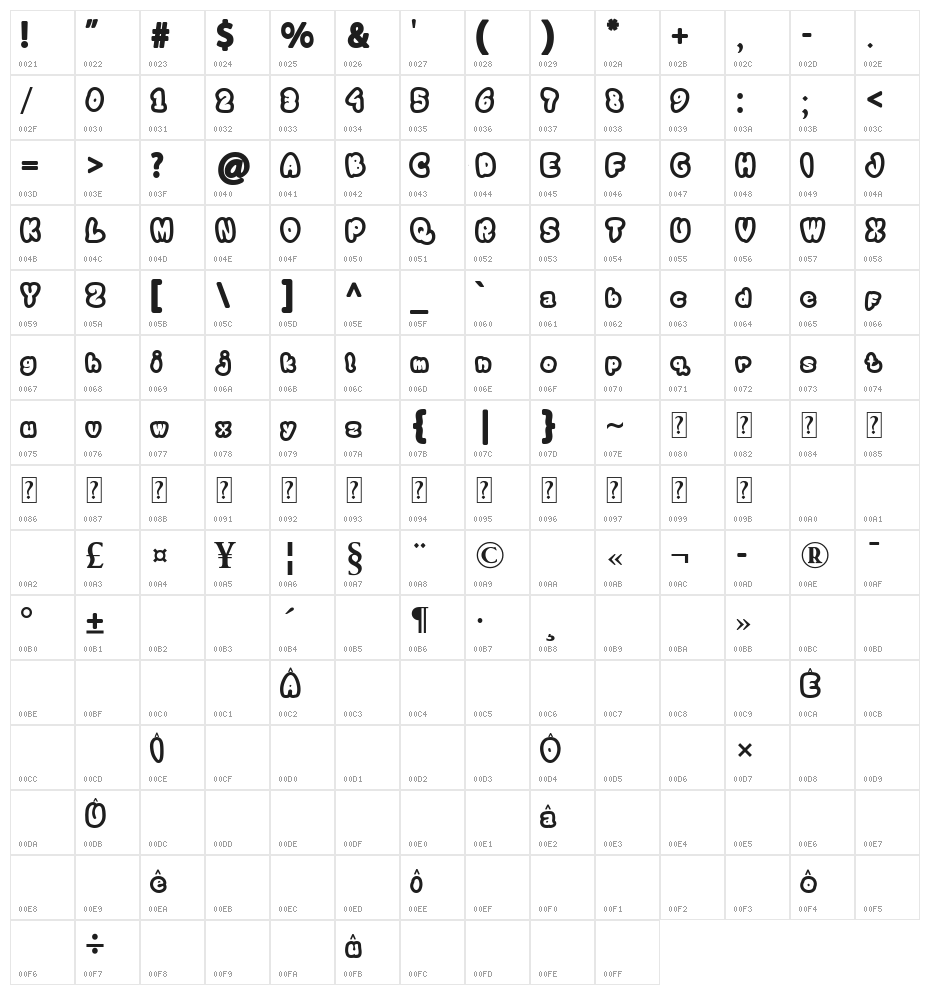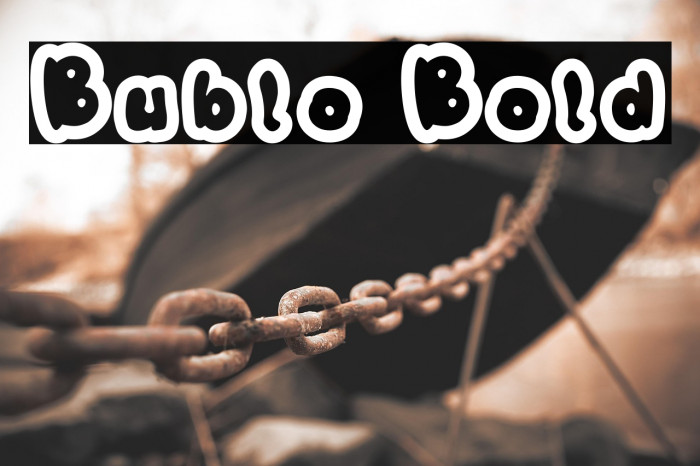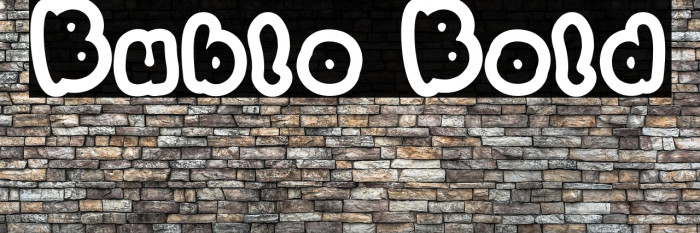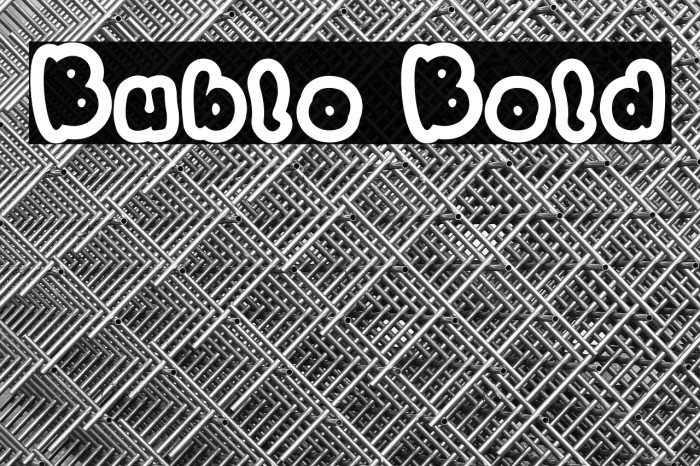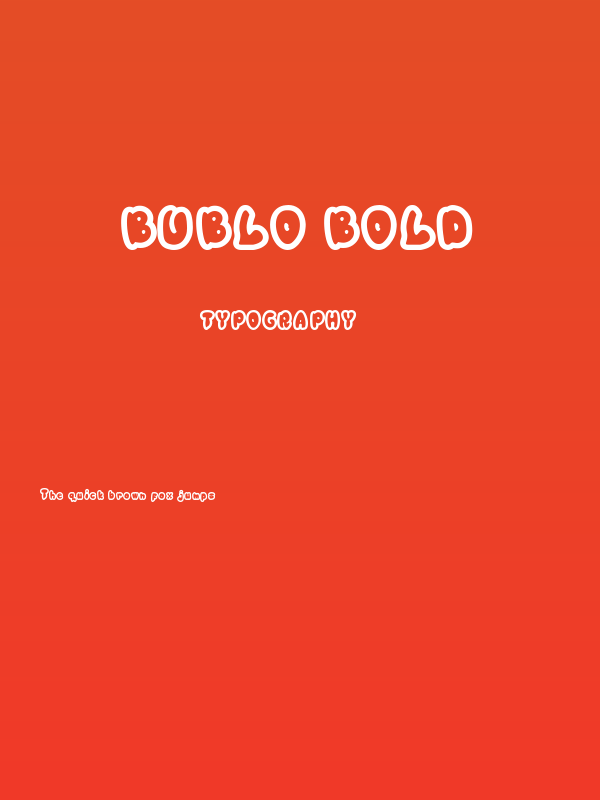
Bublo Bold Font
Bublo Bold Description
This playful and bold font features a bubbly, rounded style that exudes a sense of fun and whimsy. Each character is outlined with a thick, consistent stroke, giving it a cartoonish and approachable appearance. The letters are evenly spaced, maintaining a uniform look across both uppercase and lowercase alphabets. The numbers and special characters follow the same design principles, ensuring a cohesive visual identity. This font is perfect for projects that aim to convey a lighthearted and friendly tone, such as children's books, playful branding, or casual invitations.
| Overall Style | Playful, Cartoonish |
| Proposed Projects | Ideal for children's books, playful branding, casual invitations, and fun posters. |